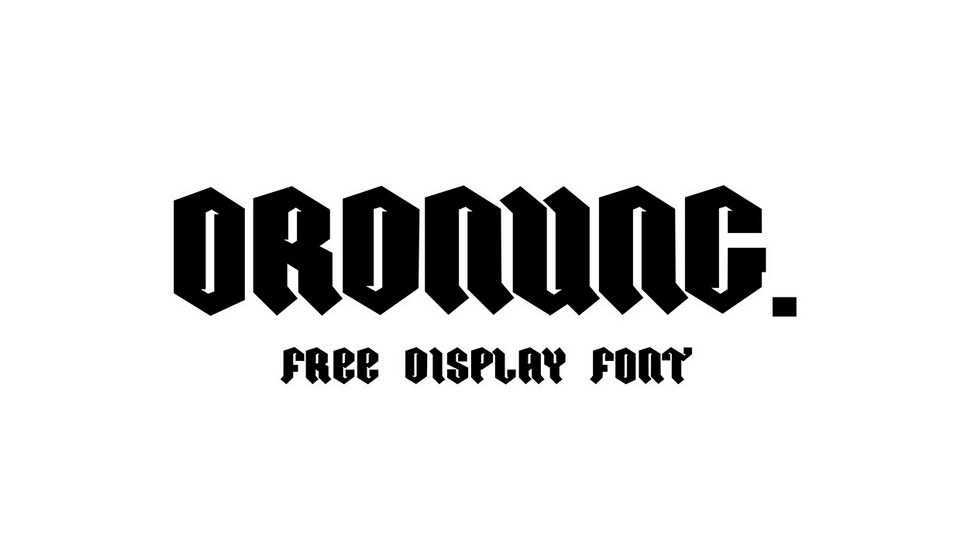
Download Ordnung font, a modular modern Gothic all caps typeface. Ordnung font fits great for display use, headlines, posters, logos, prints and more.